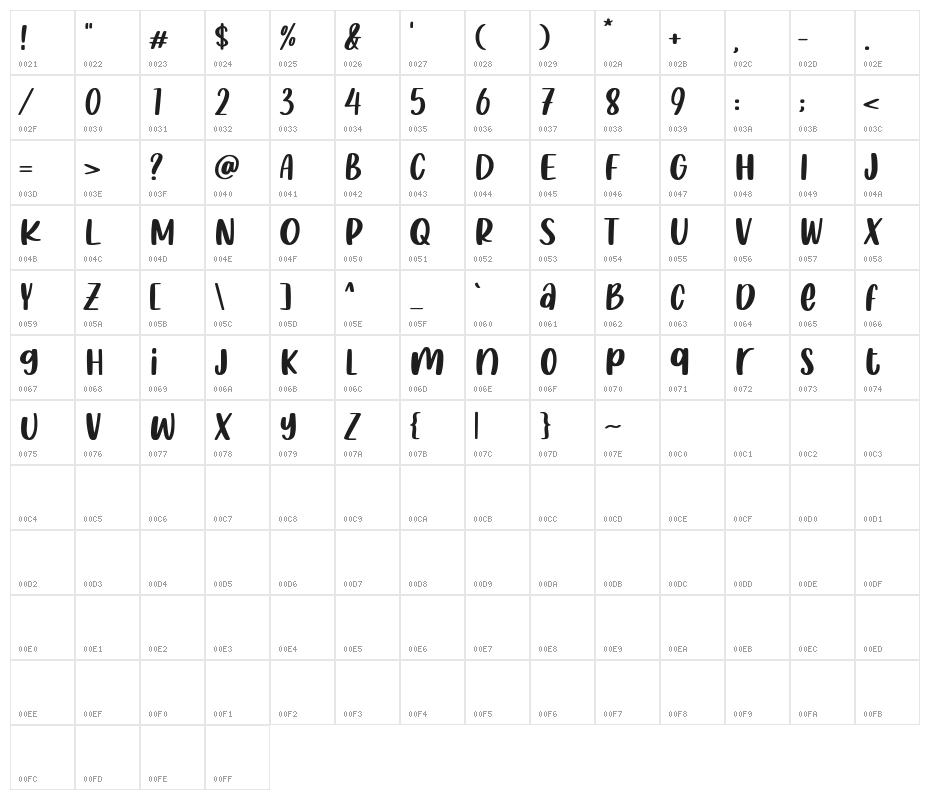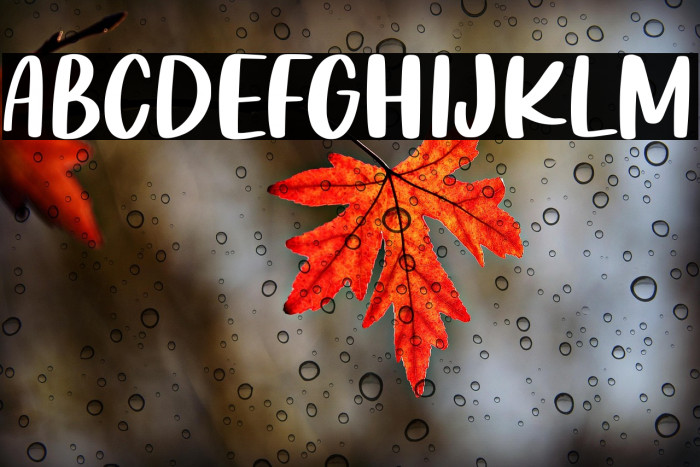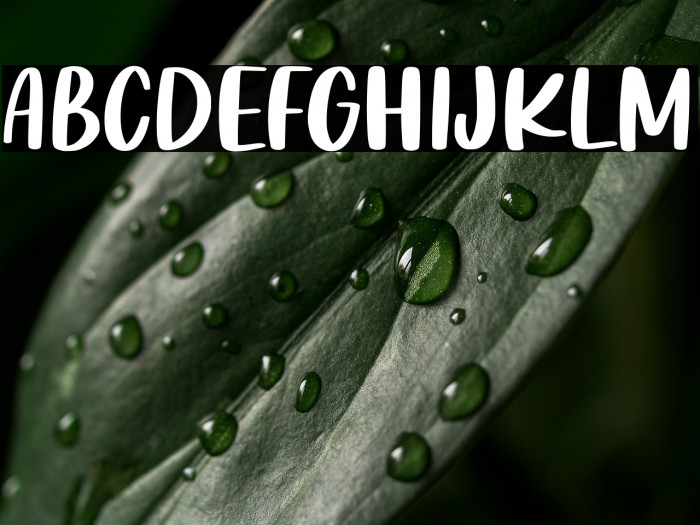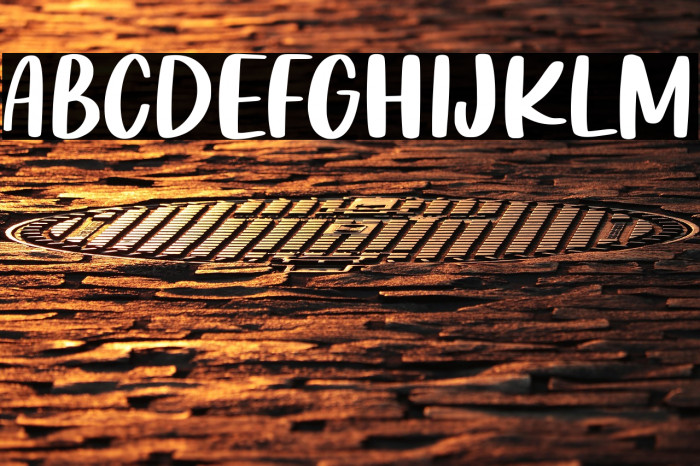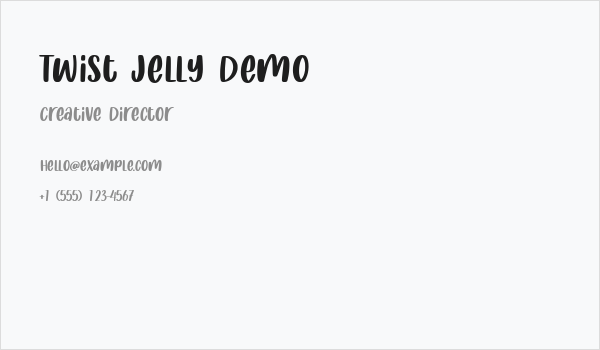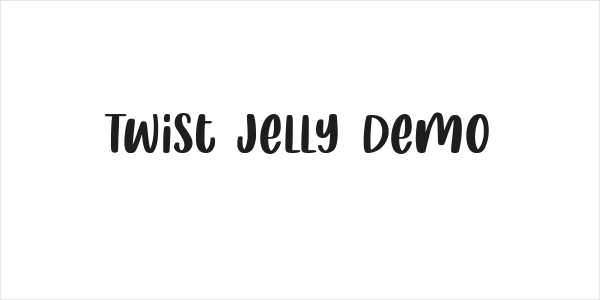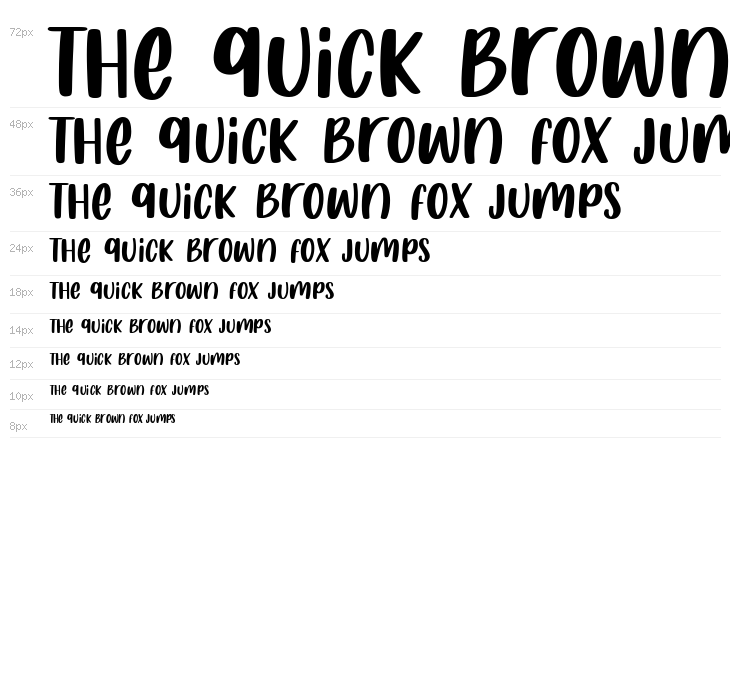
Twist Jelly Demo Font
Twist Jelly Demo Description
This playful and energetic font features bold, rounded letters with a handwritten style that exudes a sense of fun and creativity. The characters are slightly slanted, adding a dynamic flow to the text. Each letter is crafted with smooth curves and a consistent stroke width, giving it a cohesive and polished appearance. The font includes both uppercase and lowercase letters, as well as numbers and a variety of special characters. Its whimsical nature makes it perfect for projects that aim to convey a lighthearted and approachable tone.
| Proposed Projects | Ideal for children's books, playful branding, greeting cards, and creative posters. |